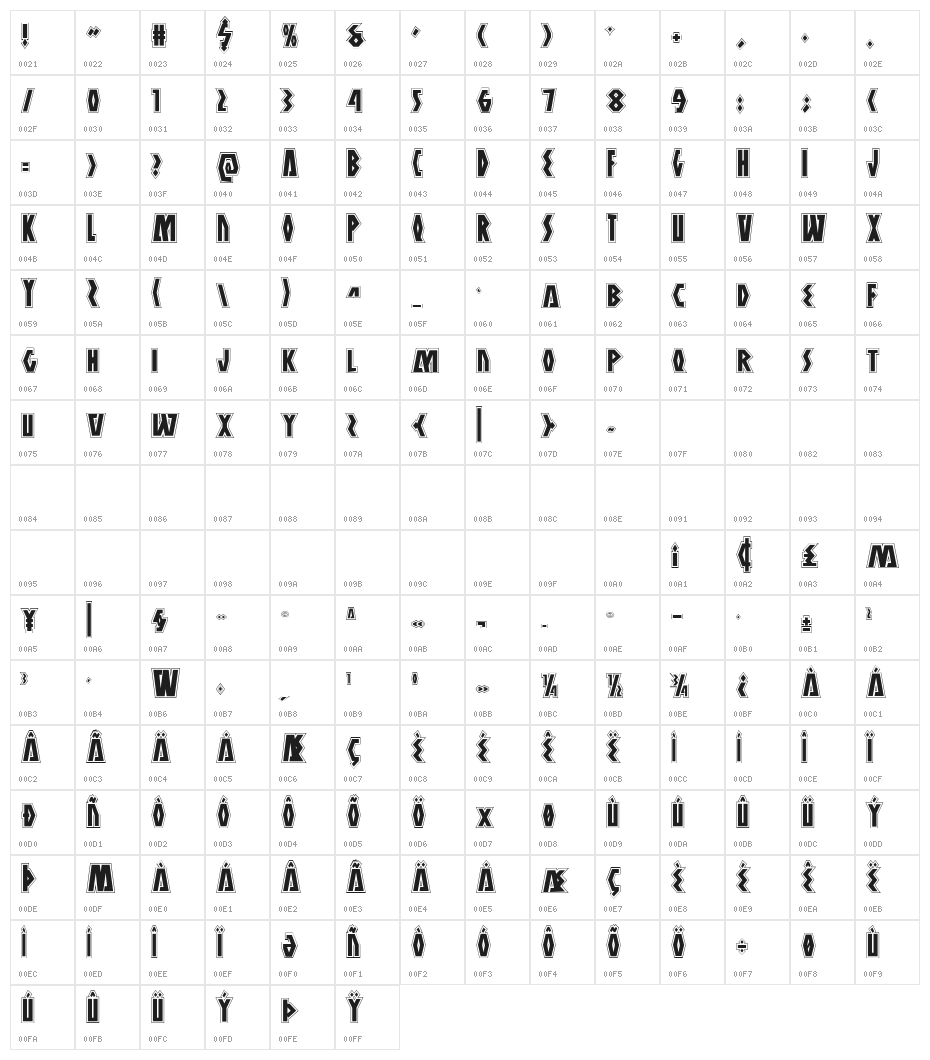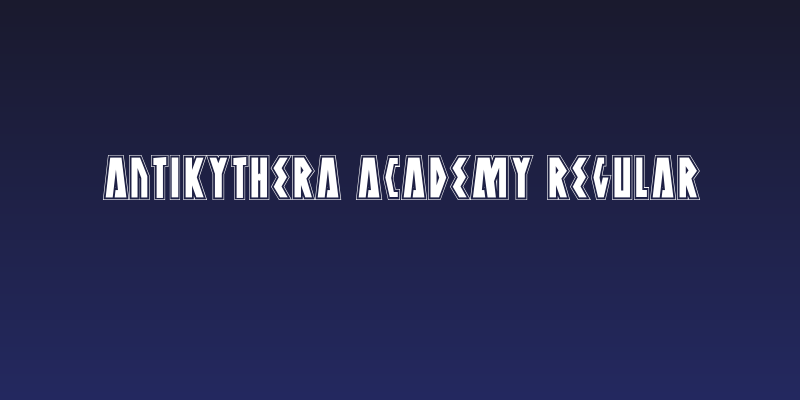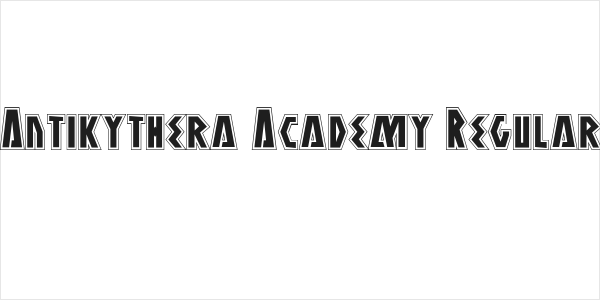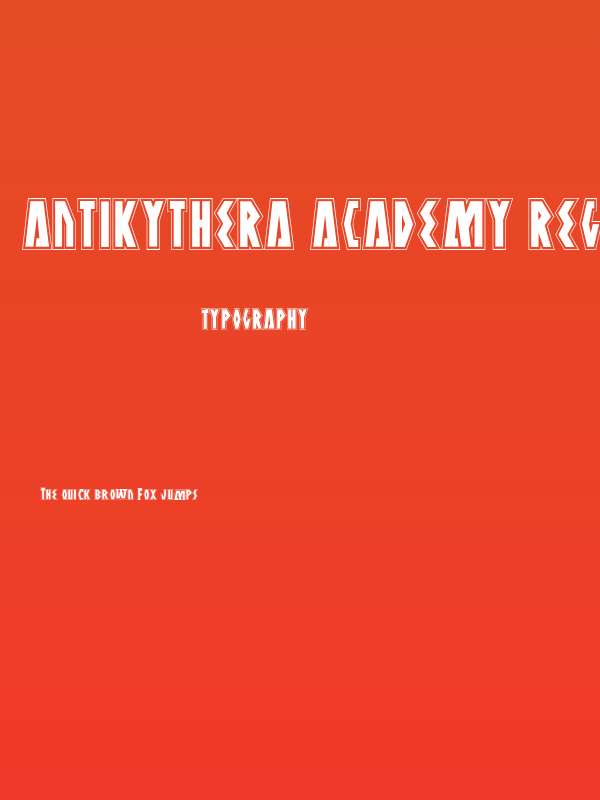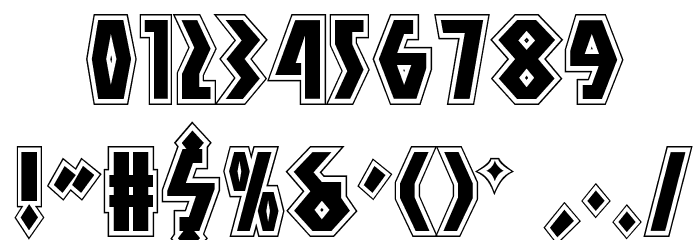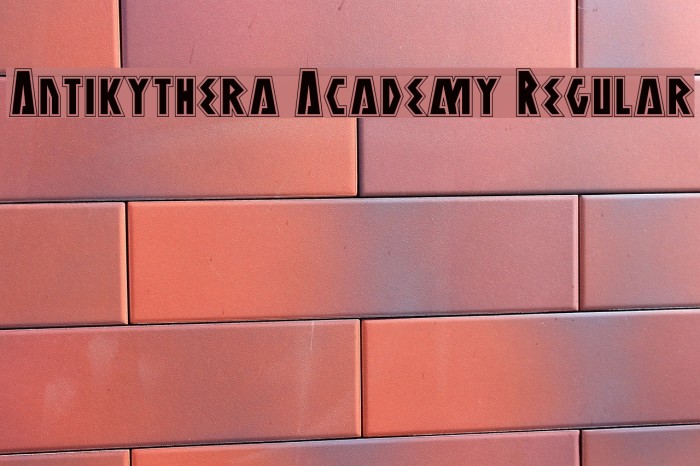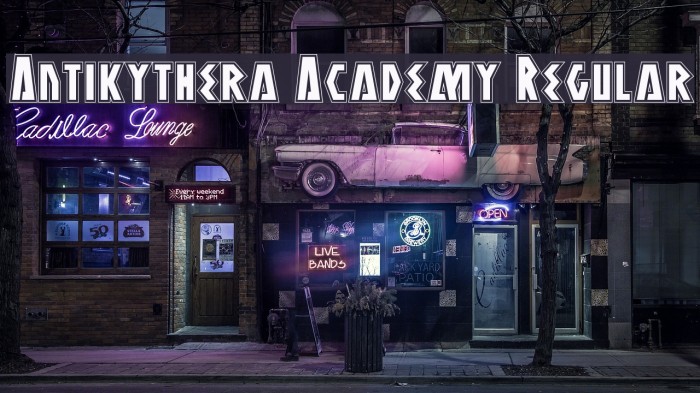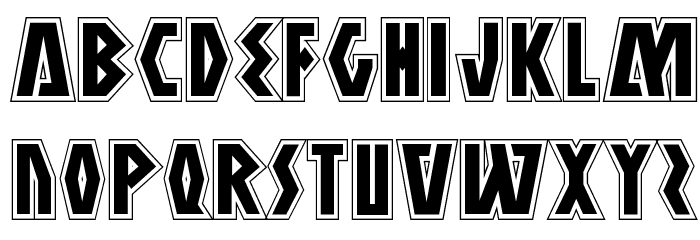
Antikythera Academy Regular Font
| Projets proposés | Ideal for posters, video game titles, branding, and any project needing a futuristic or dynamic look. |